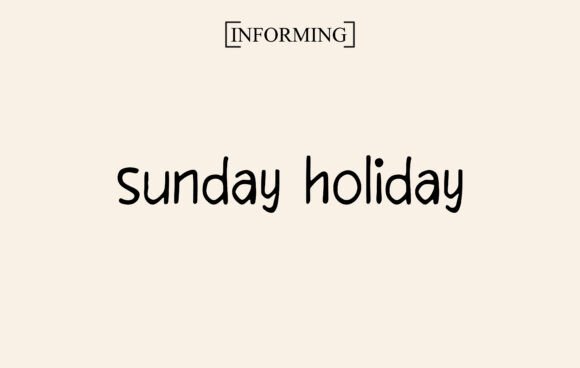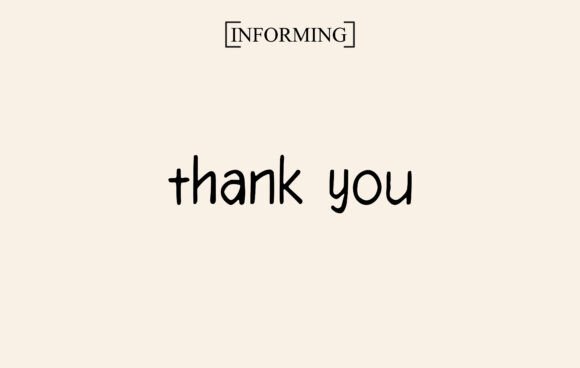
When Words Feel Like Handwritten Love
Have you ever received a handwritten note from a loved one and felt like the words were speaking directly to your heart? For designers, capturing that same sense of warmth and connection in their work can be a challenge. But what if you had a font that could convey the same feeling as a handwritten note from someone dear?
Enter Kindred Script Font, a playful and friendly script font designed to add a touch of kindness and simplicity to any design. Whether you’re creating a kids’ project, a devotional, or a greeting card, Kindred Script Font is the perfect choice to make your words feel like a personal, handwritten note.
For designers, Kindred Script Font offers a valuable alternative to more formal fonts, allowing you to add a human touch to your work that’s sure to resonate with your audience.
Key Features of Kindred Script Font
- Font Style: Script, Handwritten, Elegant
- Unique Characteristics: Includes alternate characters, swashes, and flourishes to create a unique, handwritten look
Kindred Script Font Review
Overall, I’d say the Kindred Script Font is a beautiful, elegant choice for designers looking for a handwritten feel. ✨ Its flowing curves and subtle flourishes make it perfect for invitations, greeting cards, and other creative projects where a touch of whimsy is needed.
The font’s main strength lies in its versatility. ✨ It works well in both small and large font sizes, making it suitable for a wide range of applications. Additionally, its open licensing model means it’s free for personal and commercial use, which is a major plus.
- Beautiful, elegant design
- Flows well in small and large font sizes
- May not be suitable for highly technical or formal content
- Lack of a bold or condensed version may limit its use in certain situations
- Some users may find the font too ornate or difficult to read
In conclusion, while the Kindred Script Font may not be the best choice for every project, it’s a great option for designers who want to add a touch of elegance and whimsy to their work. With its beautiful design, versatility, and open licensing model, it’s definitely worth considering for your next creative project.
Tips for Getting the Most Out of the Kindred Script Font
For optimal results, use the Kindred Script Font in combination with other fonts to create a balanced and visually appealing design. Experiment with different font sizes, colors, and styles to find the perfect look for your project.
The Kindred Script Font is ideal for creating custom invitations, wedding stationery, and other special occasion graphics. It’s also perfect for adding a touch of elegance and sophistication to your branding and marketing materials.